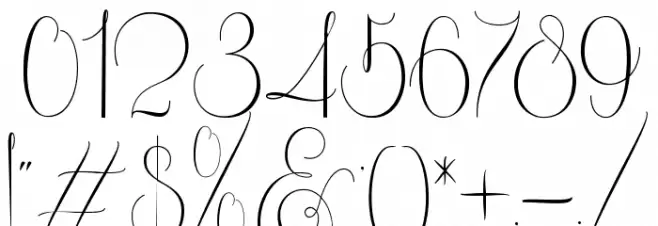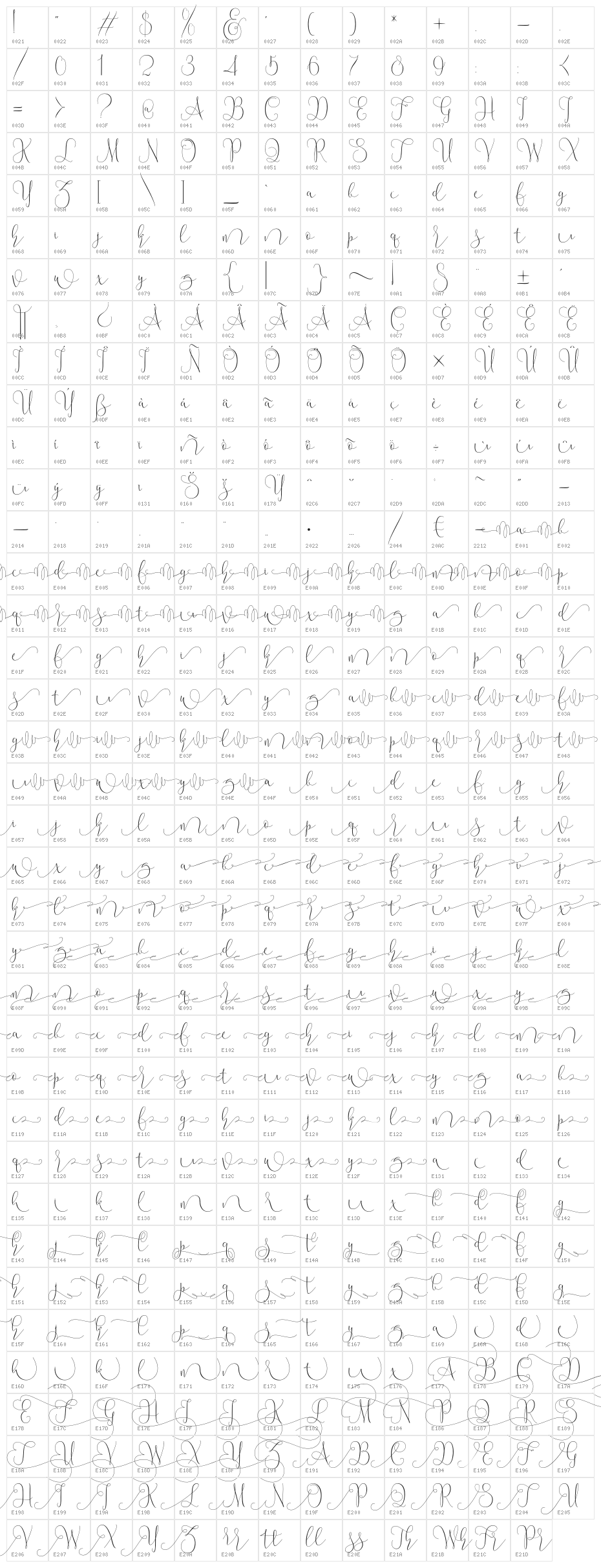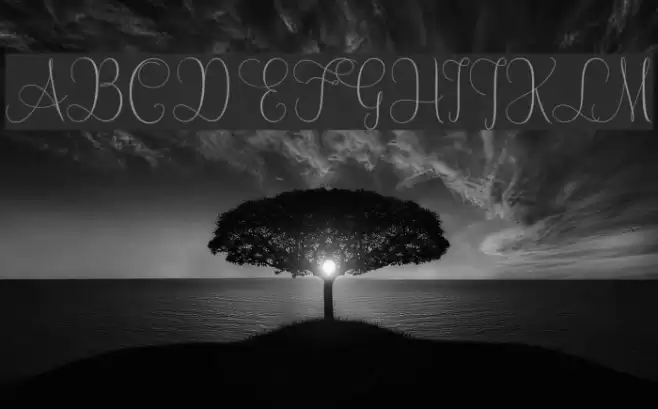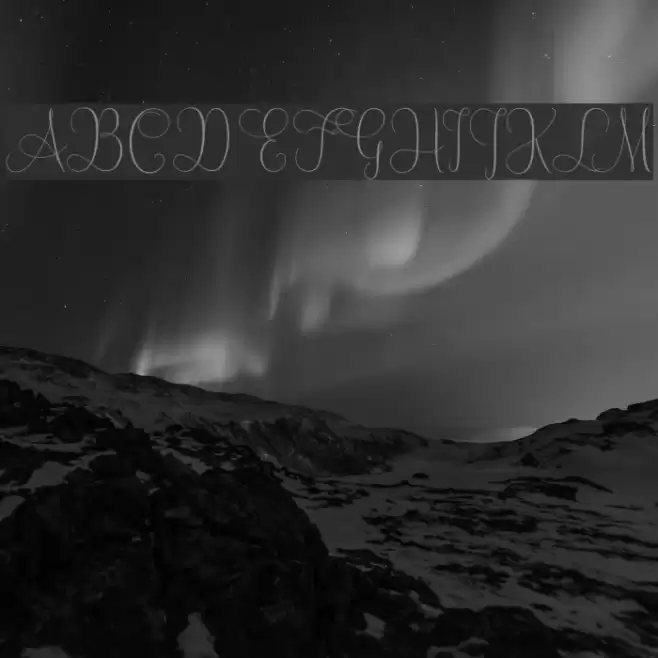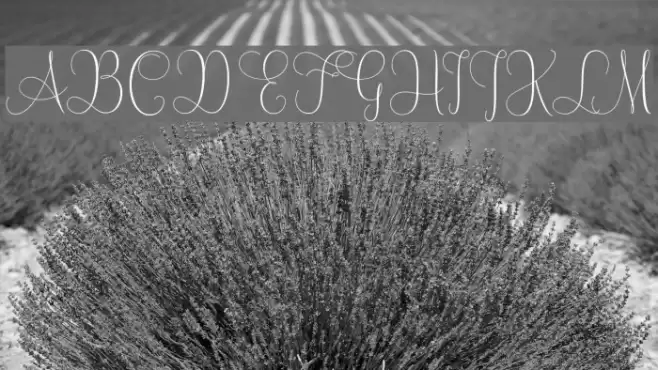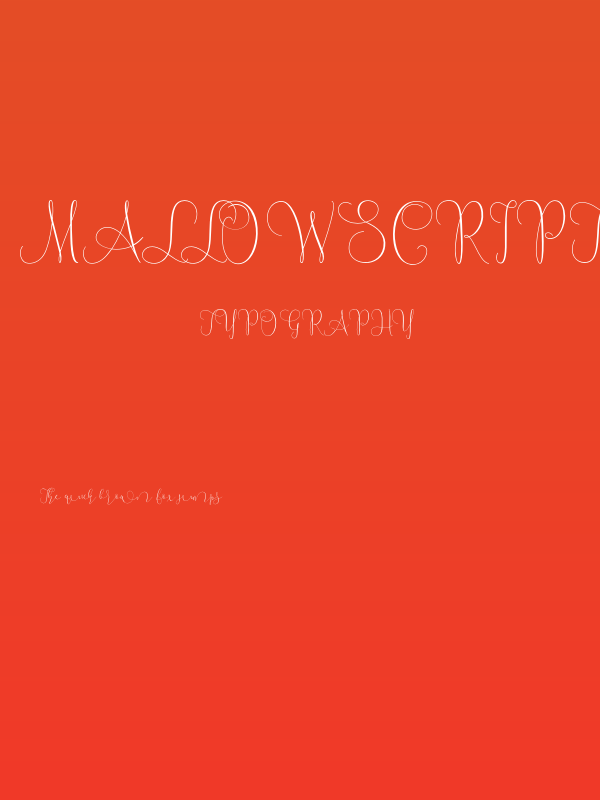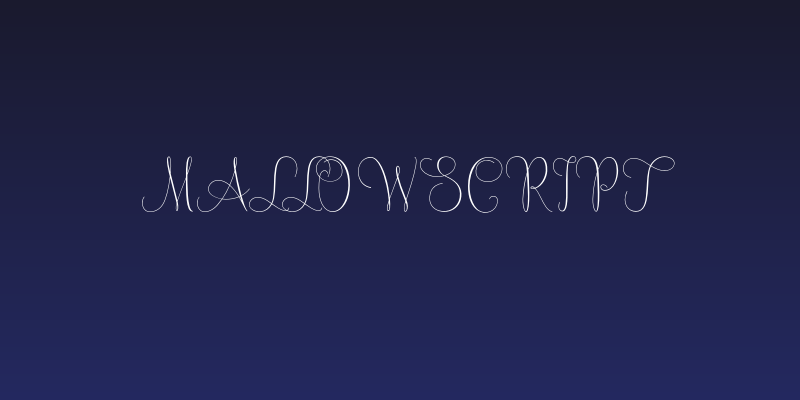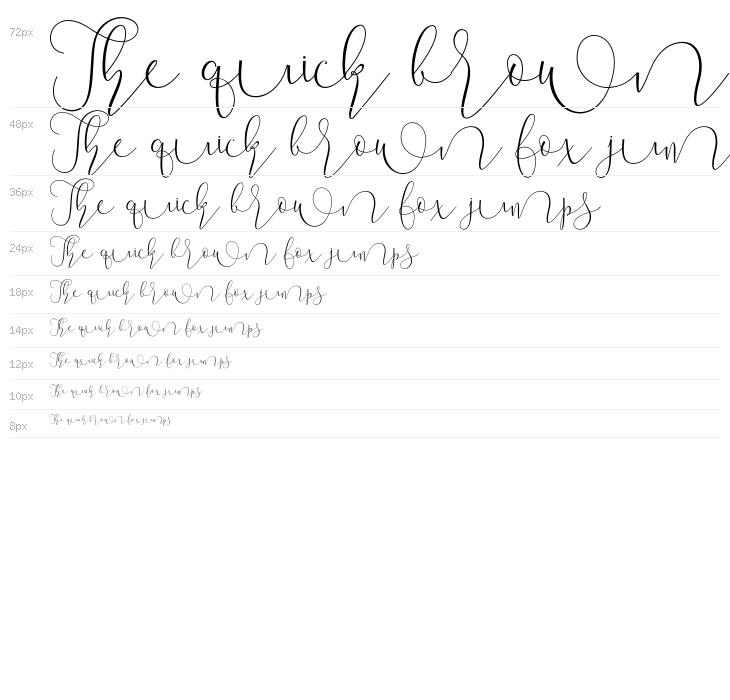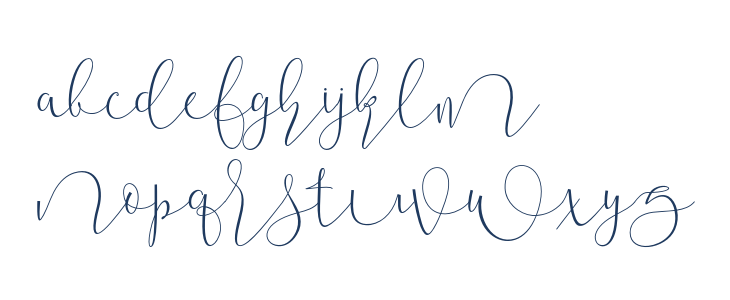
MallowScript Font
MallowScript Description
This elegant script font features a flowing, cursive style with intricate loops and flourishes. The uppercase letters are characterized by their ornate swirls, creating a sense of sophistication and grace. The lowercase letters maintain a consistent fluidity, with some characters extending into long, sweeping tails. The numerals are stylishly curved, complementing the overall aesthetic. Special characters are designed with the same attention to detail, ensuring a cohesive look across all glyphs. This font exudes a sense of elegance and is perfect for projects that require a touch of class and refinement.
| Proposed Projects | Ideal for wedding invitations, elegant branding, luxury product packaging, and decorative signage. |